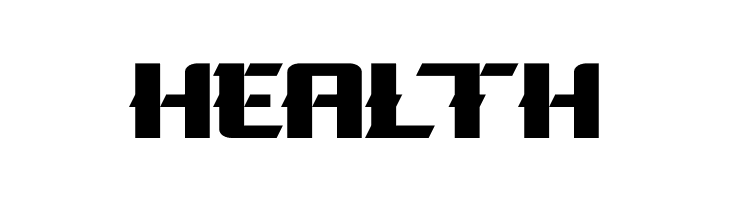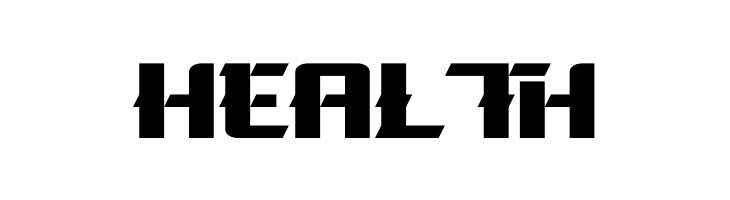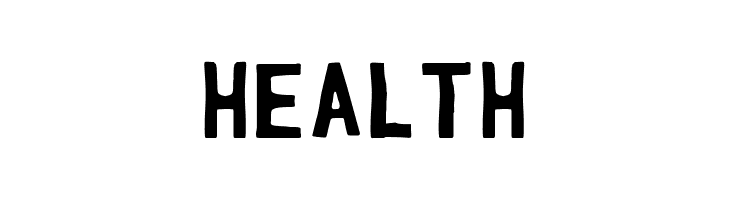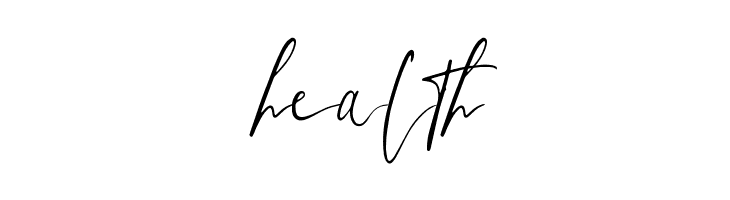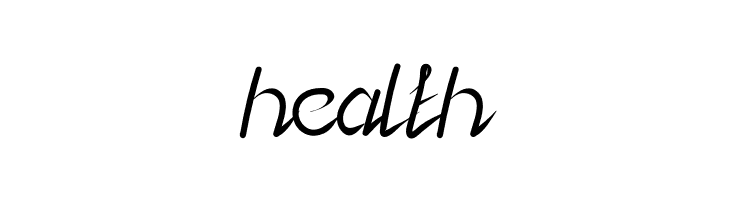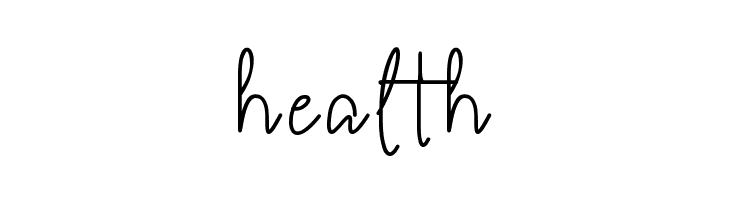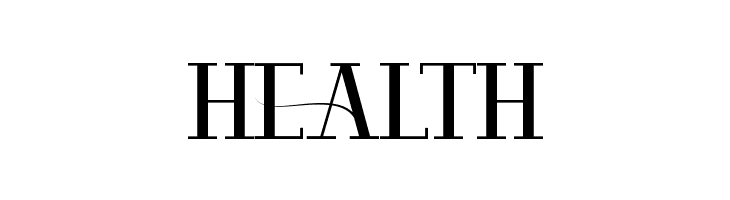
A modern, handwritten script font with fluid, connected letters.
A whimsical, cursive script with fluid strokes and elegant loops.
A bold, geometric font with sharp, angular characters.
A bold, geometric font with sharp edges and a blocky style.
A bold, hand-drawn font with a vintage, artistic style.
A dynamic and flowing script font with elegant, fluid strokes.
An elegant script font with flowing, interconnected letters and classic flourishes.
A classic serif font with high contrast and elegant, elongated letterforms.
An elegant script font with fluid, cursive strokes and sophisticated style.
A whimsical handwritten font with flowing, cursive-like strokes.